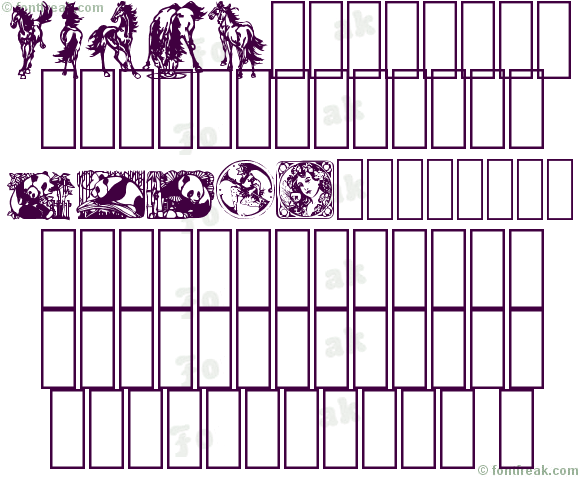
Fabeldyr 3
About Fabeldyr 3
Fabeldyr 3, designed by Listemageren in 1997, is a captivating decorative font that invites creativity and charm into any project. This unique typeface is characterized by its playful, whimsical aesthetic, featuring a combination of illustrated elements that resemble charming characters and motifs. With a distinct lack of conventional stroke weight and contrast, Fabeldyr 3 stands out through its intricate details and engaging style, making it perfect for those looking to add a touch of personality to their designs.
The visual characteristics of Fabeldyr 3 are defined by its distinctive decorative elements that evoke a sense of storytelling. The spacing is thoughtfully crafted, allowing the playful illustrations to breathe while maintaining coherence in text. This font is particularly suited for creative use cases such as children's book covers, whimsical wedding invitations, eye-catching movie posters, and vibrant restaurant menus. Each letter feels like a small work of art, making it ideal for projects that aim to capture attention and evoke emotion.
Targeted primarily at graphic designers, small business owners, and content creators, Fabeldyr 3 is a versatile option for anyone seeking to infuse their work with creativity and fun. Its unique design appeals to those who understand the importance of typography in enhancing visual communication.